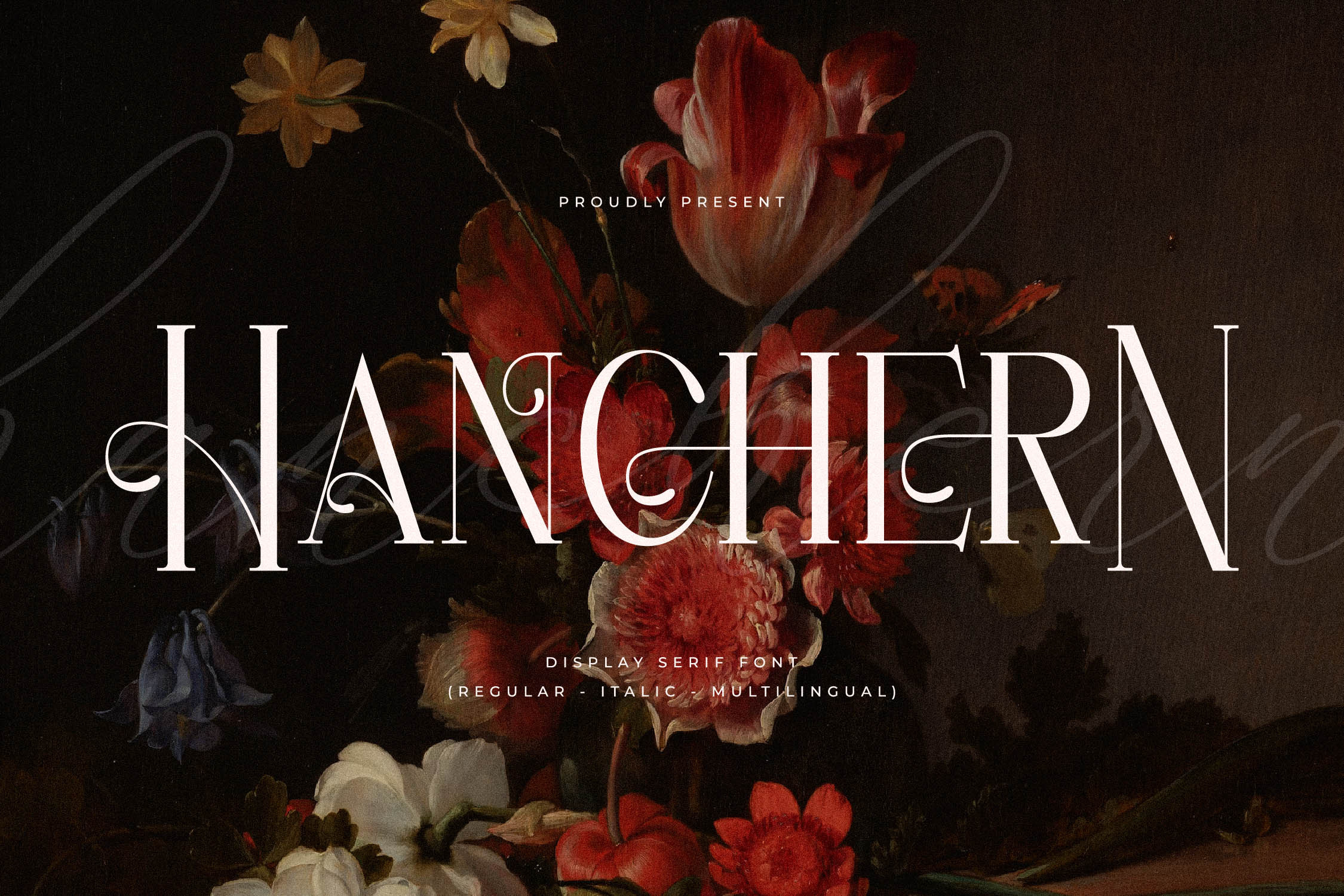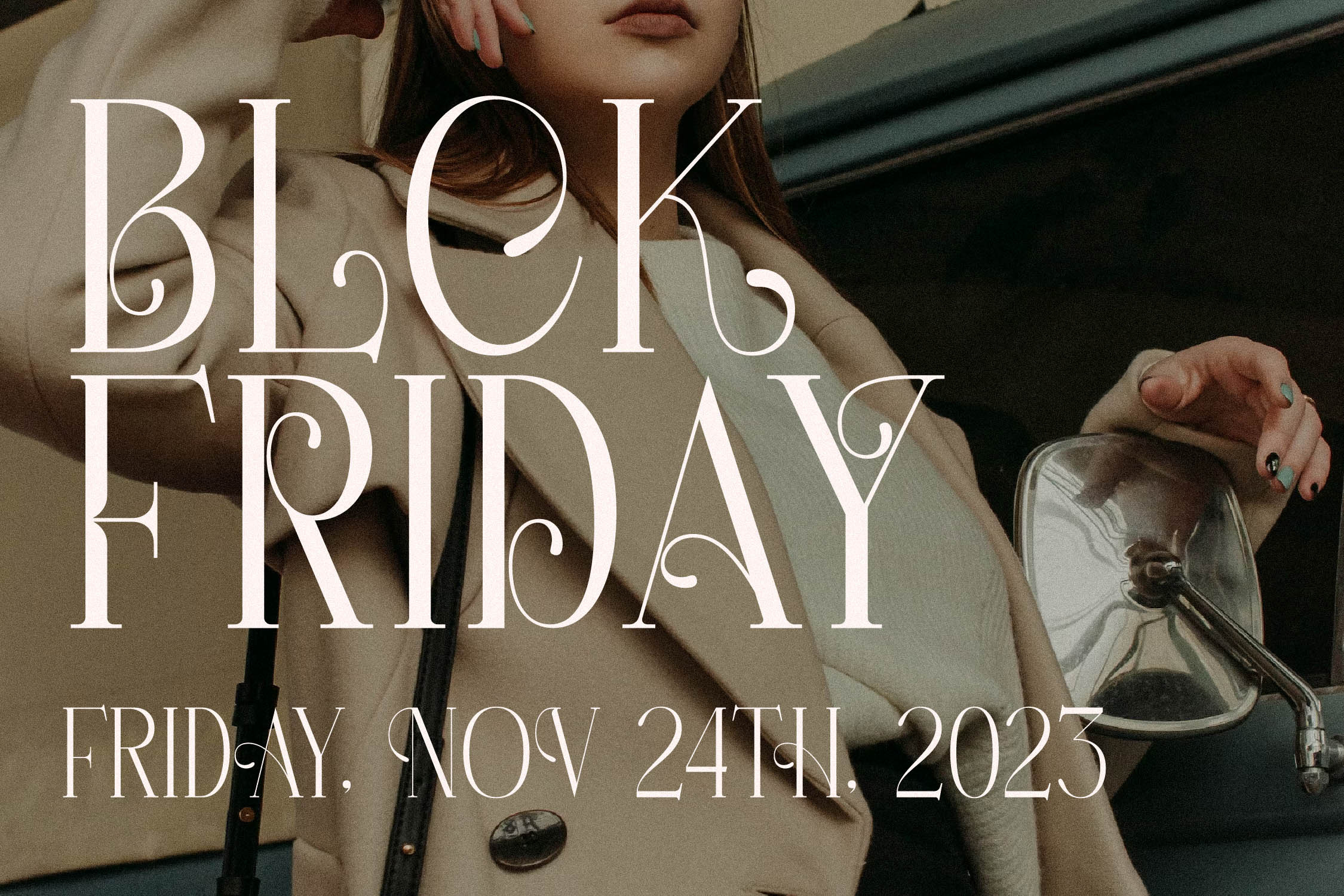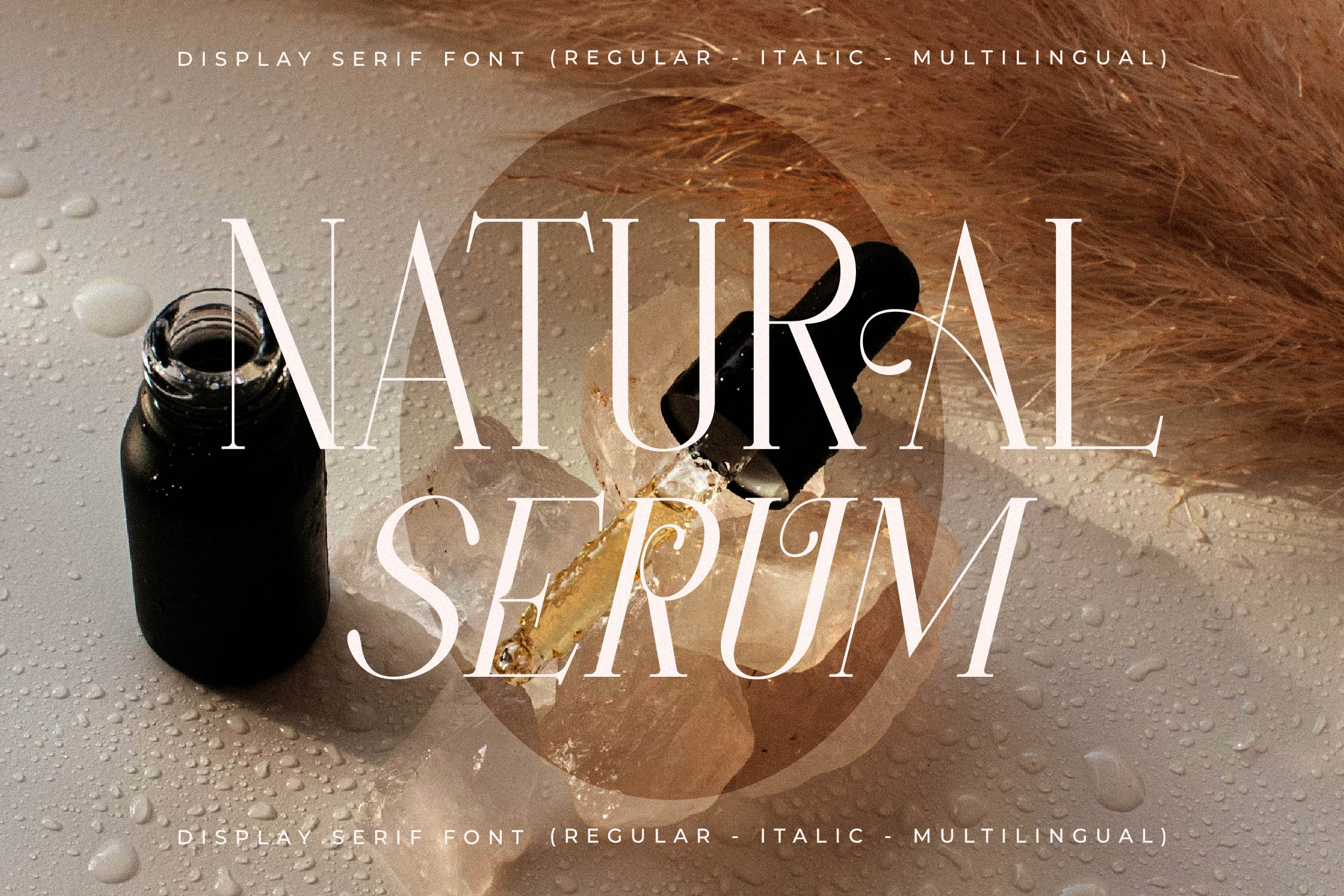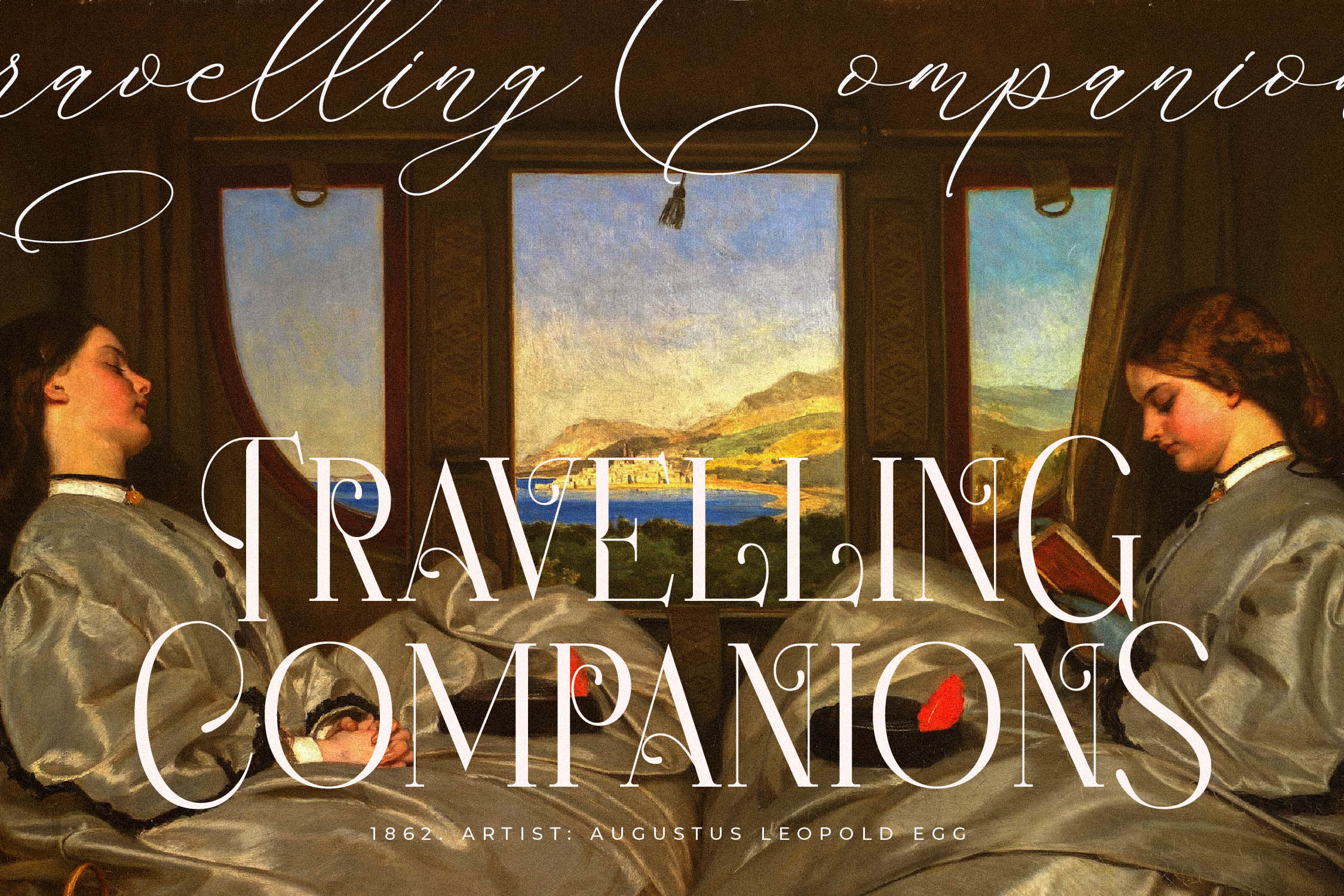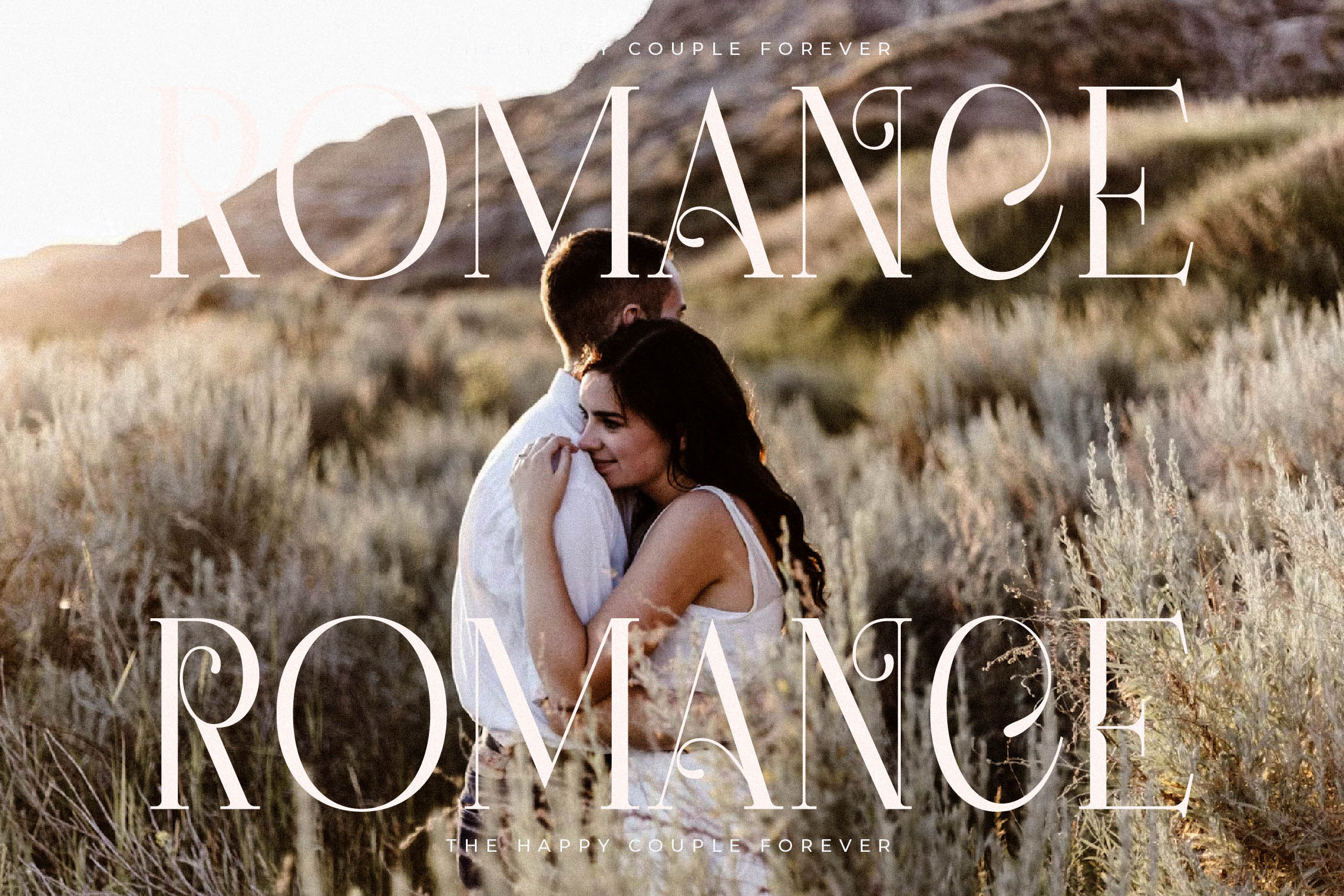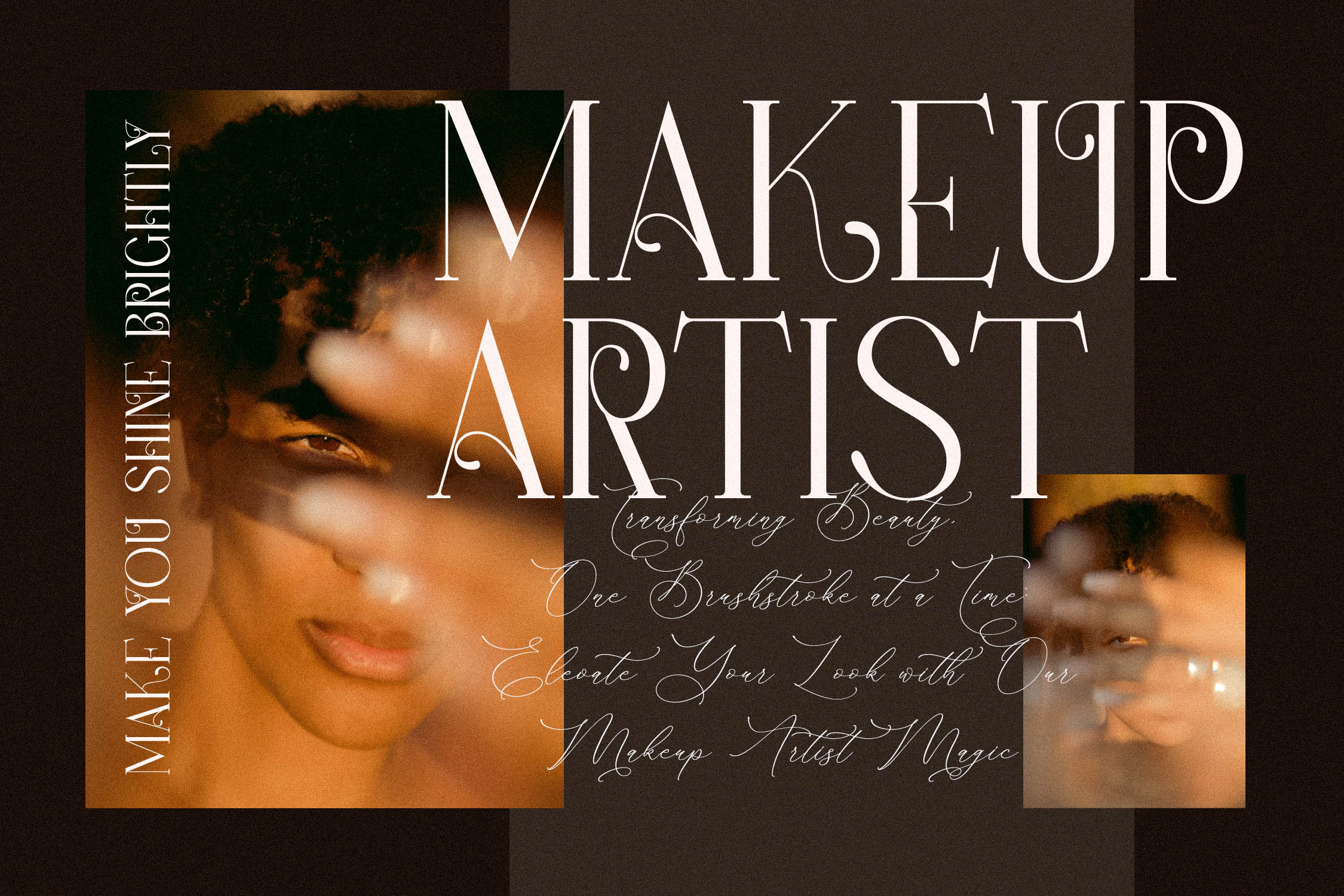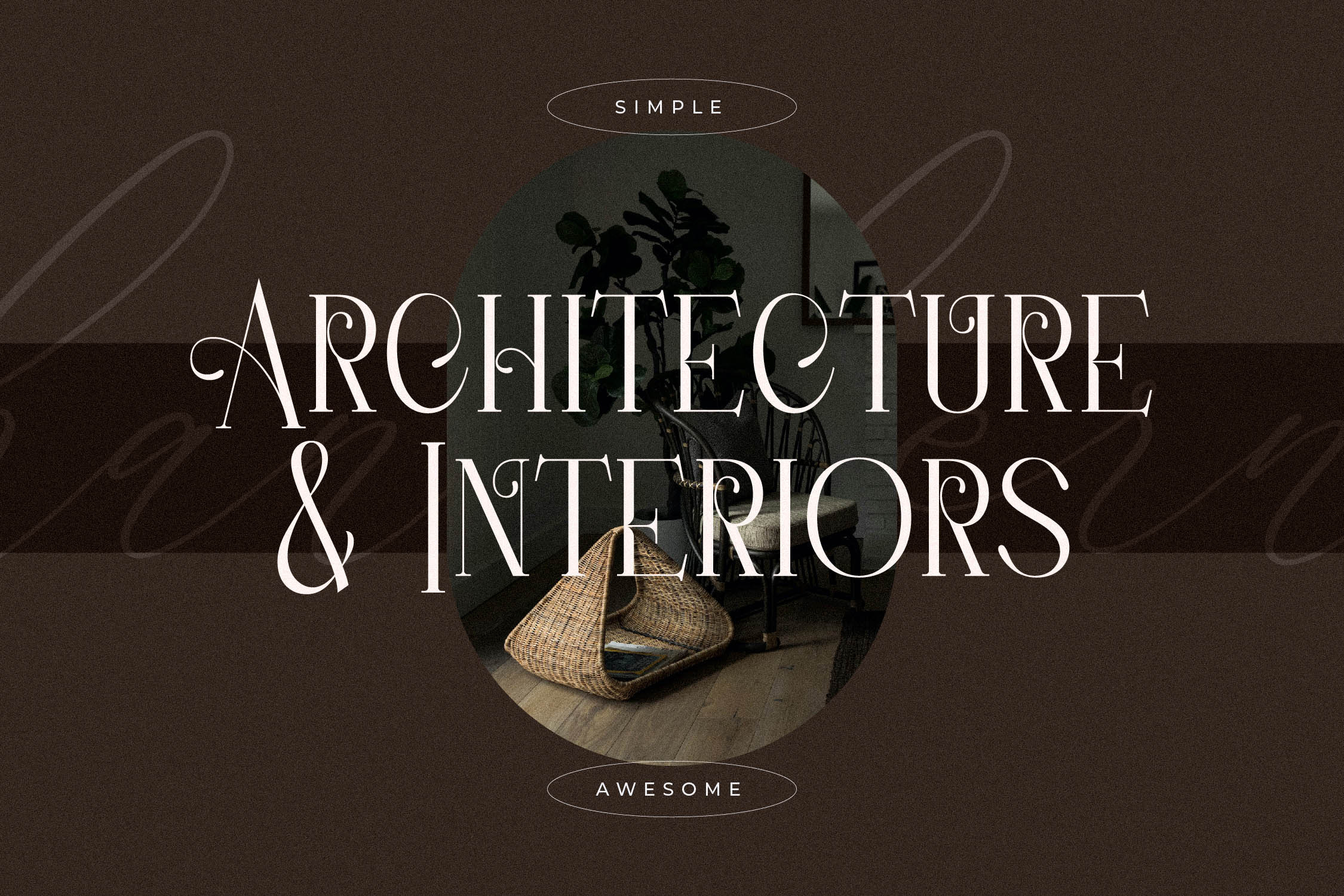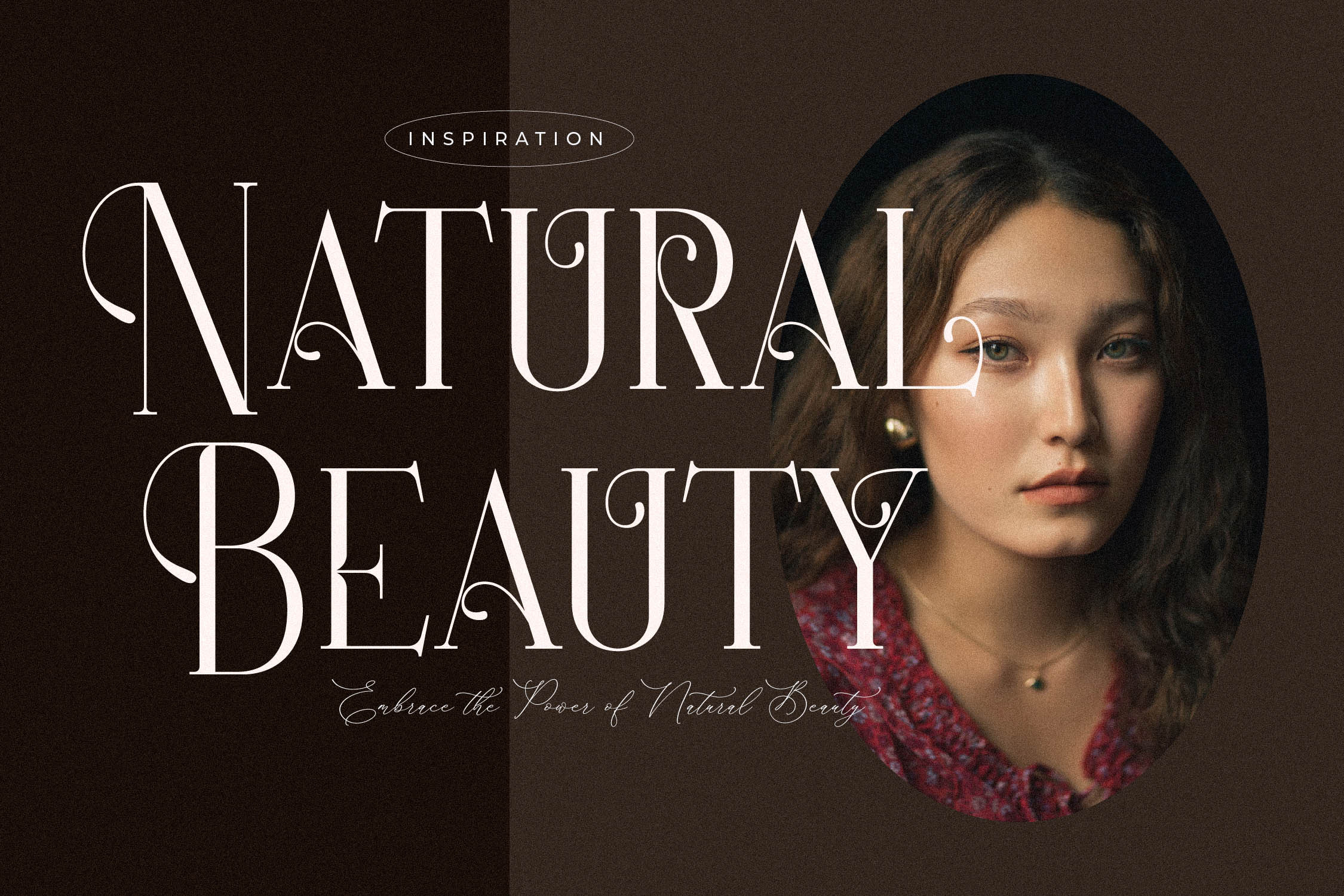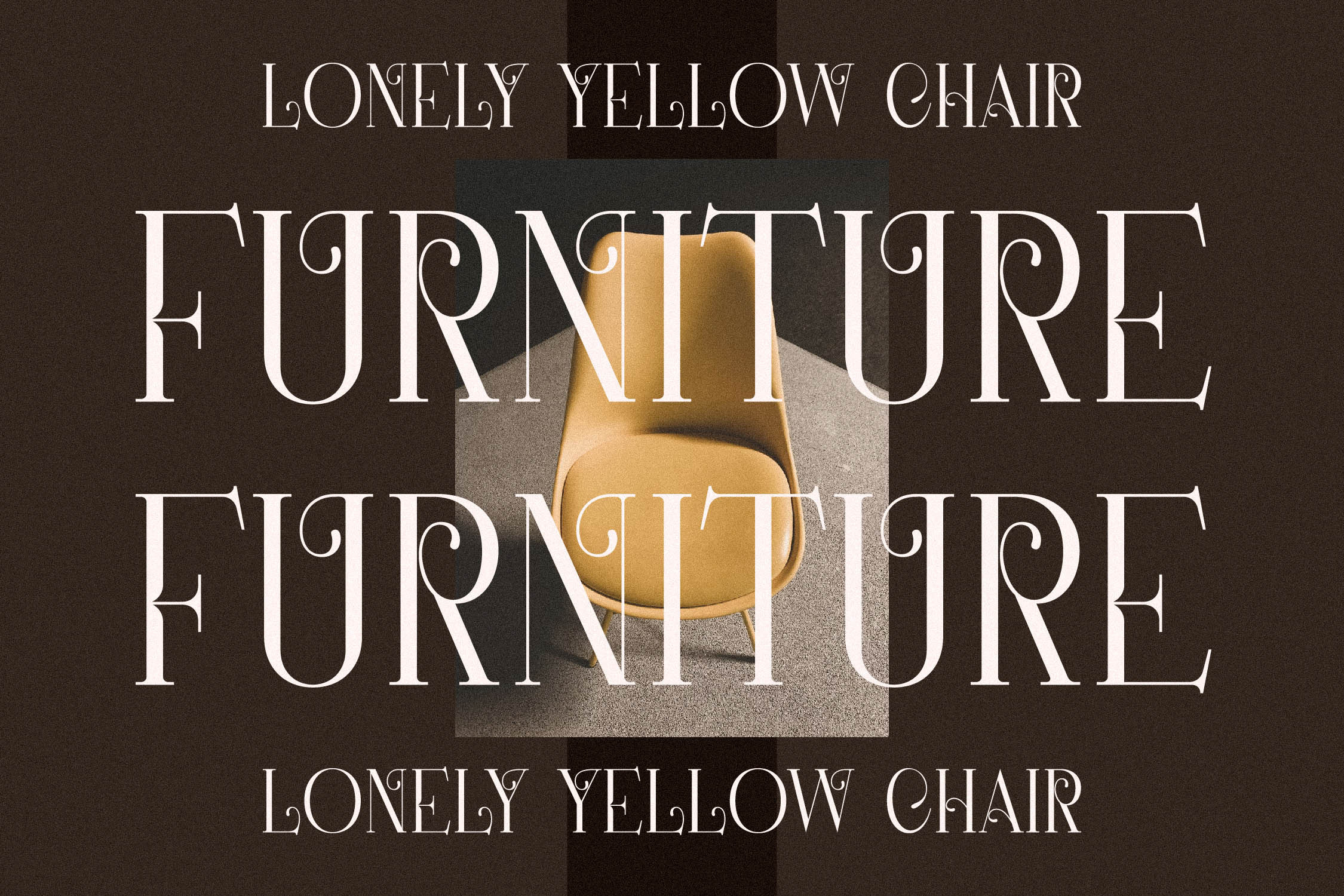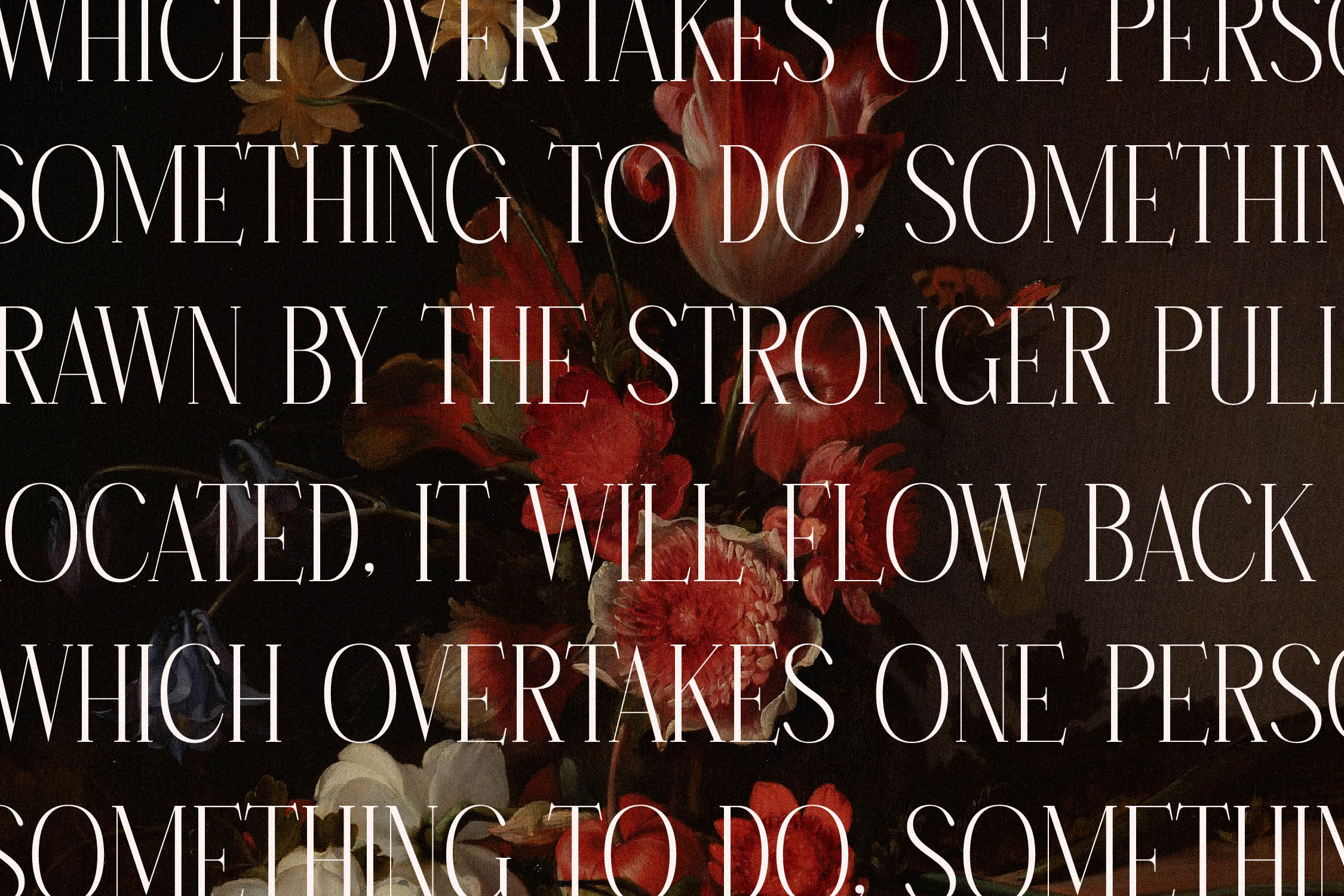
Proudly present Hanchern Typeface , created by Storytype, A serif modern and classic typeface that has own unique style & modern look. This typeface is perfect for an elegant & luxury logo, book or movie title design, fashion brand, magazine, clothes, lettering, quotes, and so much more. - Product Content : - TTF - OTF - WOFF Features : - Uppercase and Lowercase - Numerals - Punctuations (OpenType Standard) - Accents (Multilingual Characters) - Ligatures and Alternative Style Stylistic Set - Works on PC and Mac - Simple installations Thank You. | Hanchern Display Serif Font | Storytype Studio